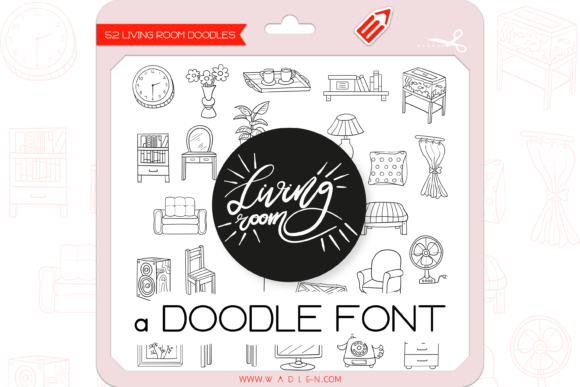
Step into a world of whimsical creativity with The Living Room Font, a charming dingbats font that brings your imagination to life. Crafted with meticulous artistry, this font family is adorned with 52 hand-drawn doodles, each exuding a touch of playfulness and warmth.
Unleash your inner artist and let your ideas flourish as you incorporate The Living Room into your creative haven. Whether you're a seasoned designer, a budding entrepreneur, or simply someone with a passion for unique expression, this font is your perfect companion.
With its playful collection of everyday objects, animals, and quirky symbols, The Living Room adds a dash of charm to any design project. Picture your social media posts, website headers, or even your personal journal adorned with these adorable doodles. They'll infuse your creations with a sense of whimsy and delight, making them stand out from the ordinary.
But The Living Room isn't just about aesthetics; it's also incredibly versatile. Its carefully drawn lines and intricate details make it perfect for a wide range of creative endeavors. From eye-catching logos and branding materials to playful invitations and greeting cards, this font is sure to leave a lasting impression.